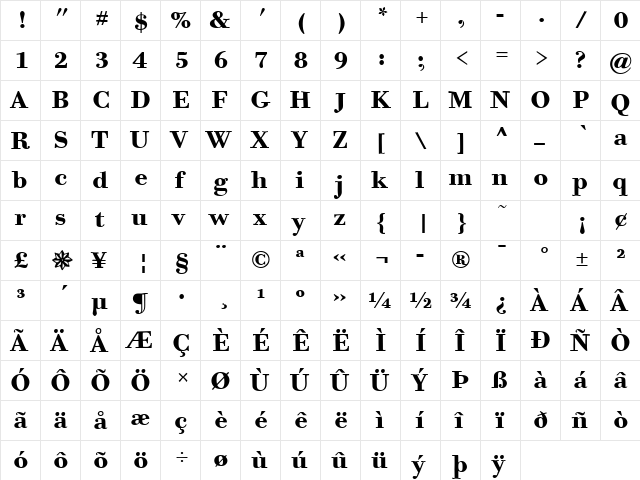
Bodoni Six ITC TT Bold
Design Context for Bodoni Six ITC TT Typeface
Bodoni Six ITC TT is a composed and adaptable typeface that performs quietly and consistently across a wide range of design contexts. Its bold stroke weight gives it real presence on the page.